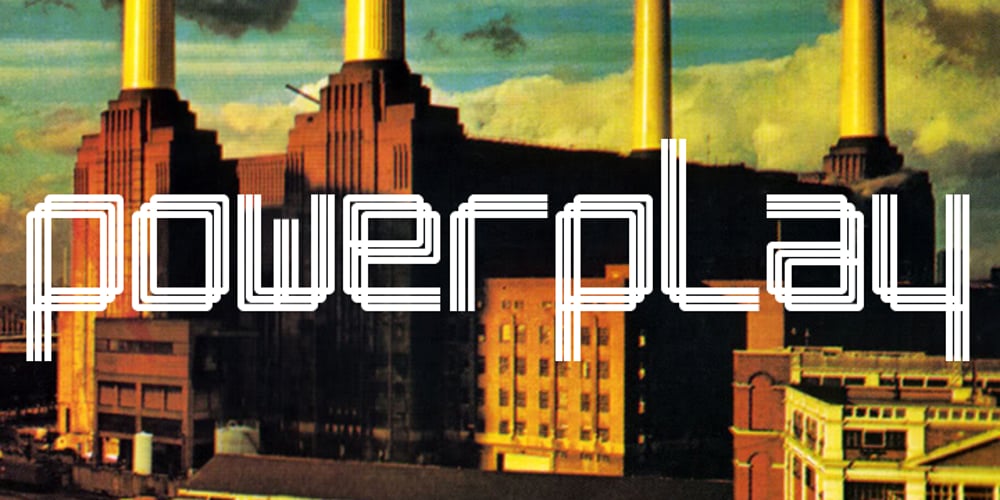
AT Move Powerplay Font Family was designed by André Toet and published by André Toet Design. AT Move Powerplay contains 1 styles and family package options. POWERPLAY a monospace lowercase alphabet with a 3D twist. Designed by André Toet in 1976 (during his study at Central School of Art & Design, London, UK) and he redesigned this in 2011. The name Powerplay is based on the Battersea Power Station, London. The remarkable architecture of the building is also used as a decor for films and for one of the covers by Pink Floyd (Animals, the flying pig). Concept/Art Direction/ Design: André Toet © 2017